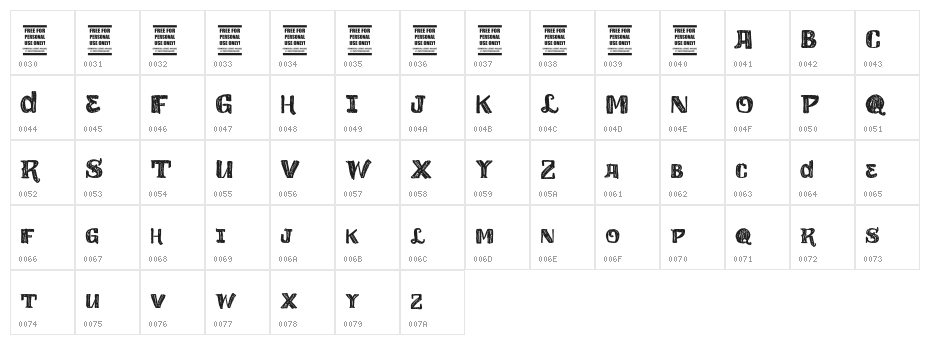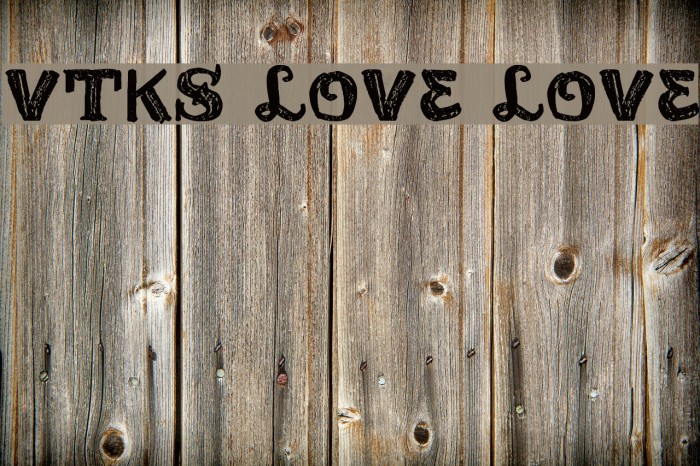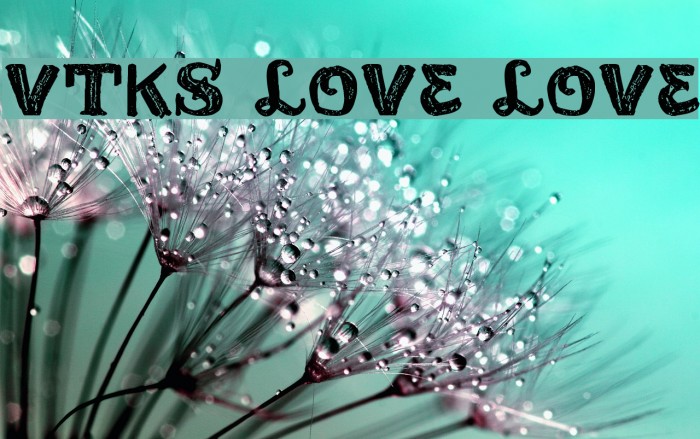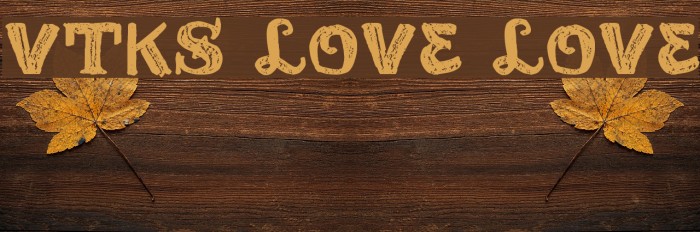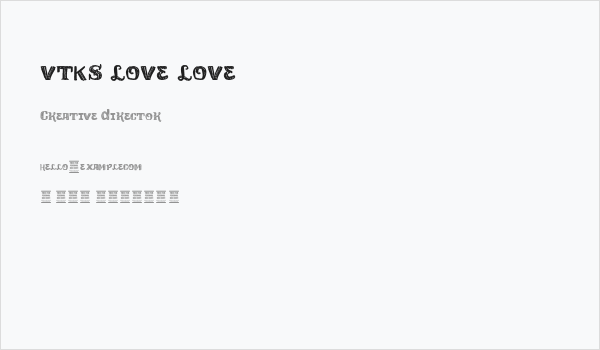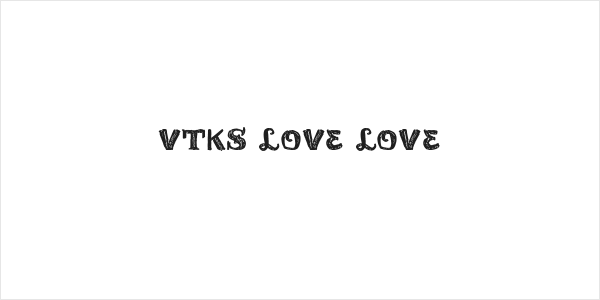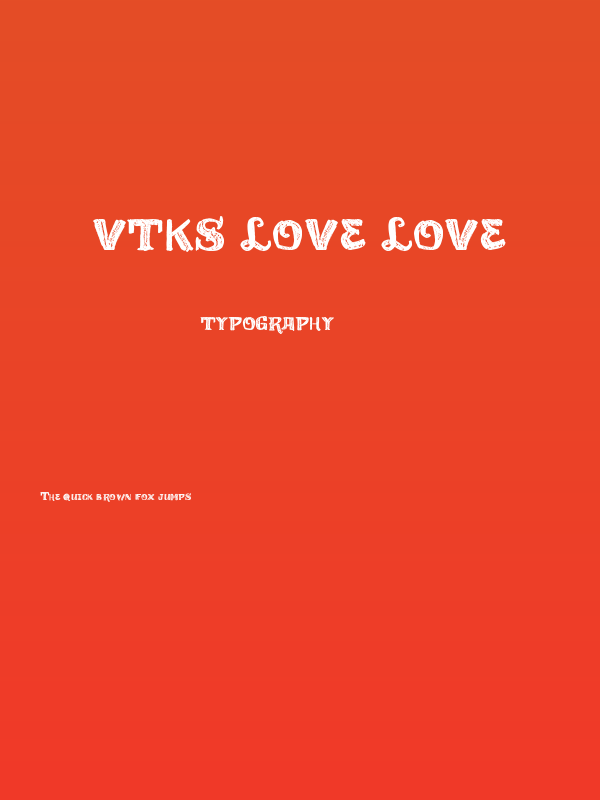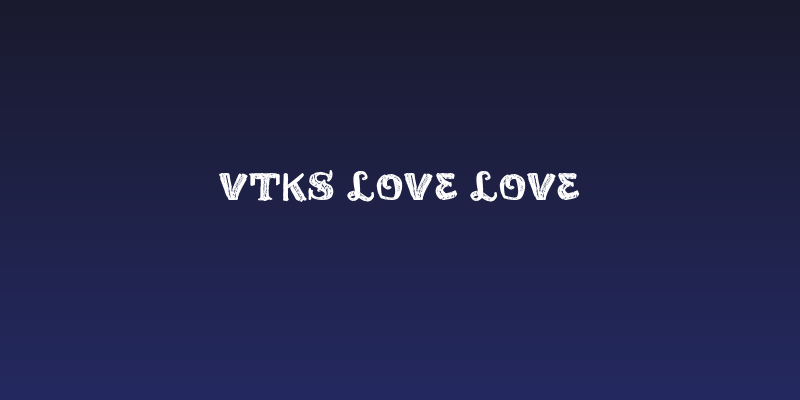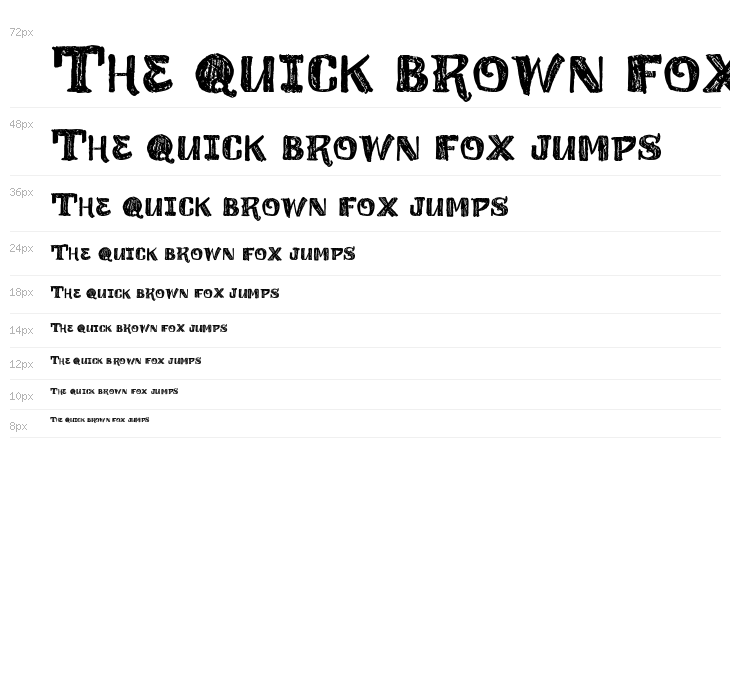
vtks love love Font
vtks love love Description
This font features a bold, textured style that gives it a hand-drawn, artistic appearance. The letters are characterized by uneven edges and a distressed look, adding a sense of depth and personality. The uppercase and lowercase letters maintain a consistent design, with a playful and slightly chaotic feel. This font is ideal for projects that require a creative and informal touch, such as posters, invitations, or artistic branding. Its unique style makes it stand out, providing a visually engaging experience.
| Proposed Projects | Ideal for posters, invitations, artistic branding, and creative projects. |